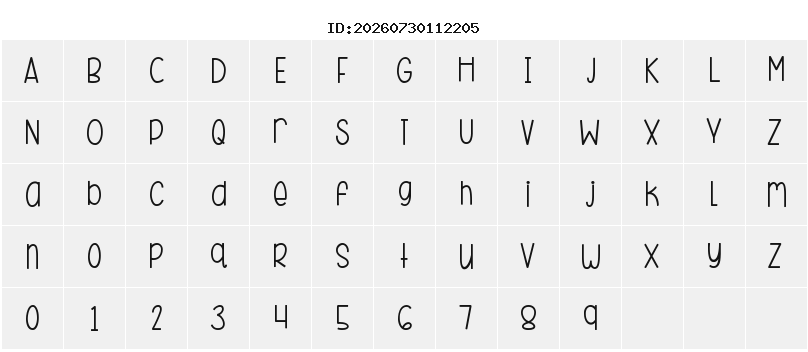
KG Beneath Your Beautiful Chunk Preview
• Font Name: KG Beneath Your Beautiful Chunk
• Full Font Name: KG Beneath Your Beautiful Chunk
• Designer: Kimberly Geswein
About KG Beneath Your Beautiful Chunk.ttf
KG Beneath Your Beautiful Chunk.ttf is a modern, elegant sans-serif font designed for ultimate readability and visual harmony. Perfect for branding, headlines, web design, and print materials.